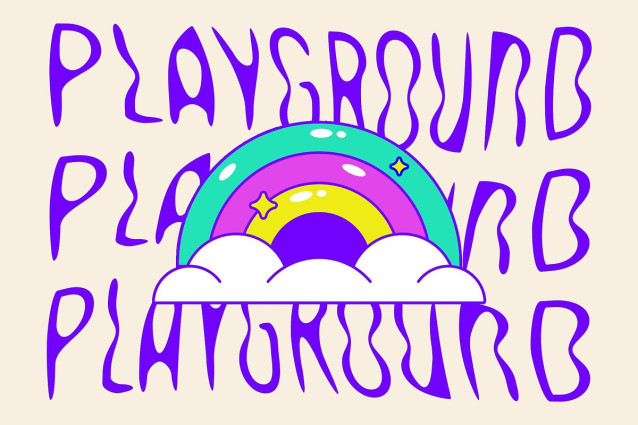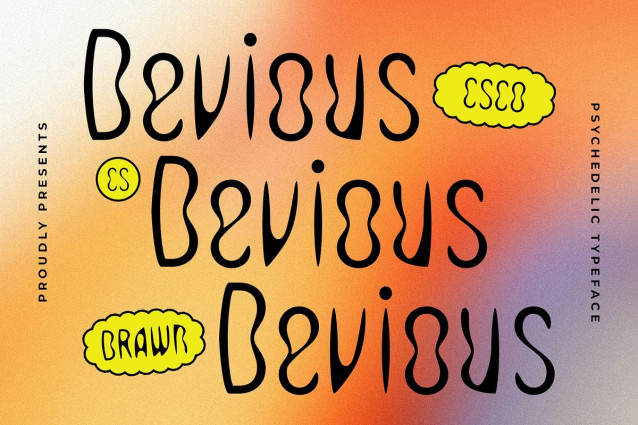
CS Devious Drawn Font
CS Devious Drawn Font is a modern display font that blends psychedelic inspiration with freeform creativity. Its twisting, unusual shapes break away from traditional letterform structures, giving your designs a funky, expressive, and slightly rebellious edge. The result is a visual rhythm that feels alive, electric, and full of personality.
Hand-Drawn Style with Artistic Imperfection A subtle yet distinct drawn effect gives this typeface a raw, handmade quality, infusing it with warmth and human presence. Each letter feels intentionally imperfect, making it ideal for designers who want to add authenticity, spontaneity, and texture to their work. It strikes the perfect balance between chaotic charm and creative control.
Designed for the Daring and Imaginative Perfect for music posters, underground zines, album artwork, alternative fashion branding, or any experimental visual project, this unique font demands attention and radiates creativity. It’s a go-to choice when you want your typography to feel vibrant, unconventional, and emotionally charged.
A Typeface That Thrives in the Unexpected Whether you’re channeling retro psychedelia or pushing the boundaries of modern visual art, this font gives you the tools to challenge the ordinary. This imaginative font invites designers to explore bold expression and unique storytelling through every letterform.